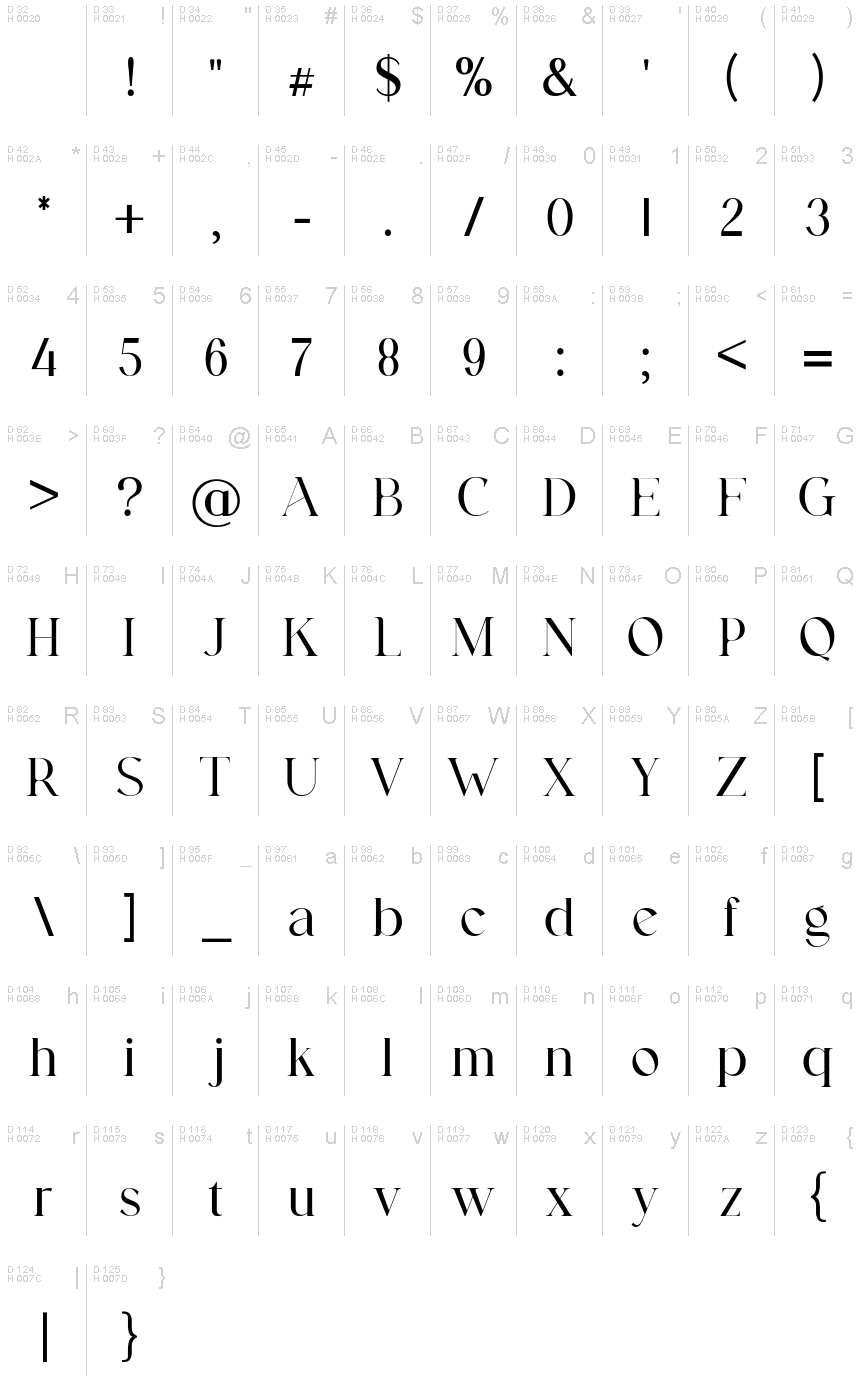
Gashingtone
Gashingtone, crafted by UI Creative, is a sophisticated serif font that exudes timeless elegance. The font's refined lines and graceful curves create an aesthetic that is both classic and modern. Its strikingly bold serifs and delicate strokes blend seamlessly to offer a visual harmony that captivates the eye.
Ideal for high-end branding, editorial design, and luxurious invitations, Gashingtone commands attention with its poised presence. The font's unique balance of weight adds a level of distinction to any project, making it perfect for those looking to make a statement with their typography. Whether you're designing a logo or crafting an elegant headline, Gashingtone provides the versatility and style needed for standout designs.